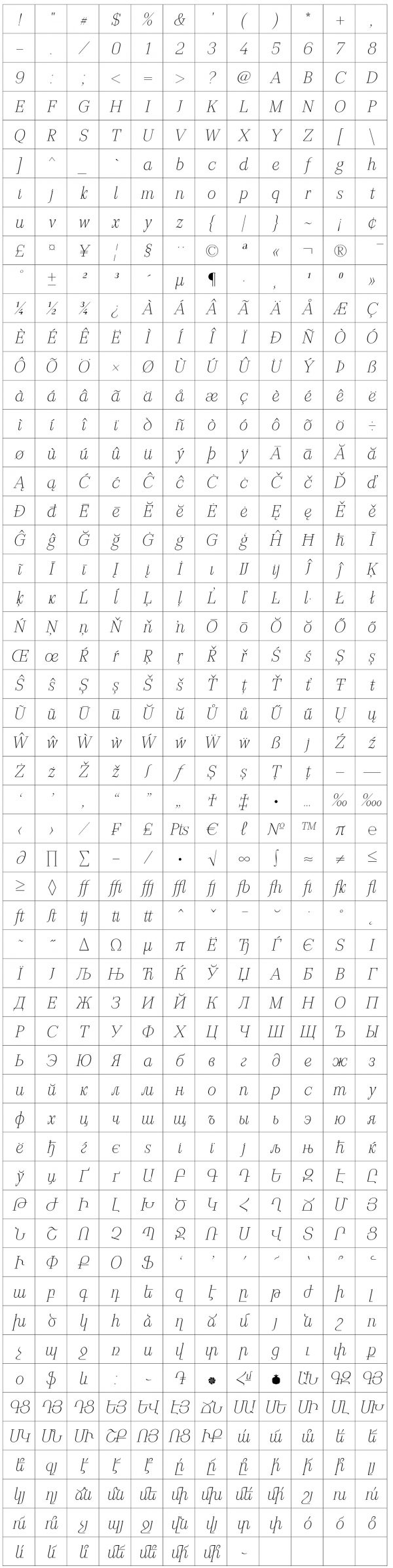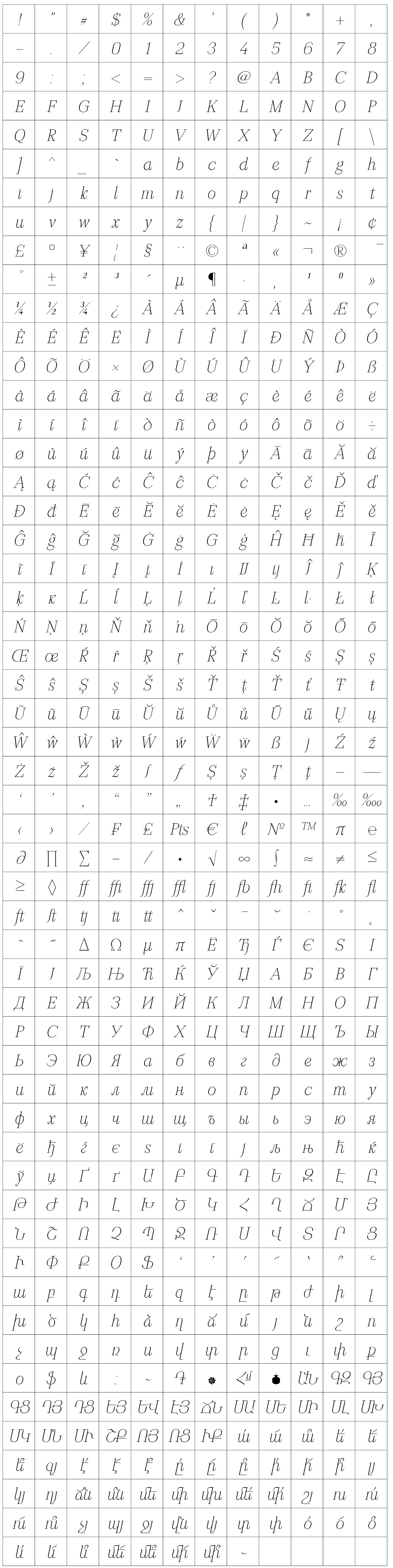
GHEA AramPro Extra Light Italic
Design date: 2024
Styles: 20 (ExtraLight, Light, Regular, Medium, SemiBold, DemiBold, Bold, ExtraBold, Heavy, Black and italics).
The Serif font GHEA Aram Pro has contrast and straight axes of ovals. Includes Armenian, Latin Pro and Cyrillic alphabetic systems.
The font can be used as a text font and also title font, for books, albums, etc.